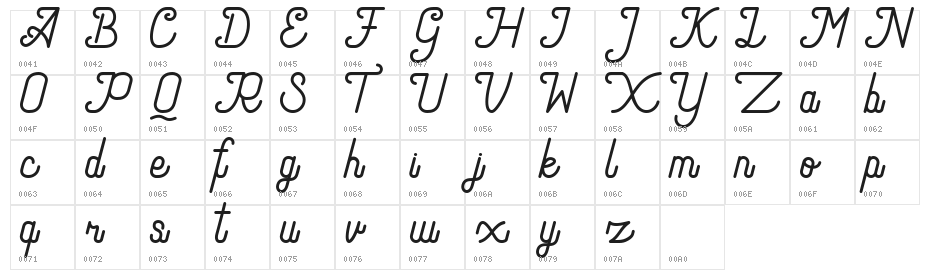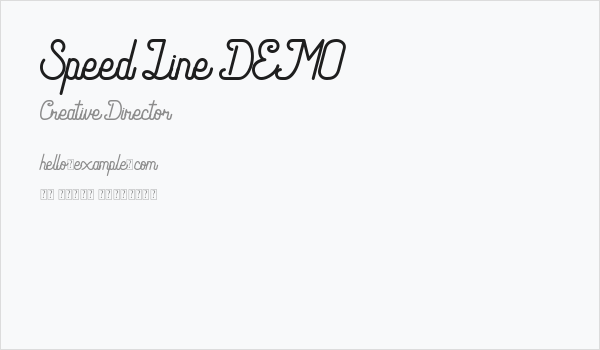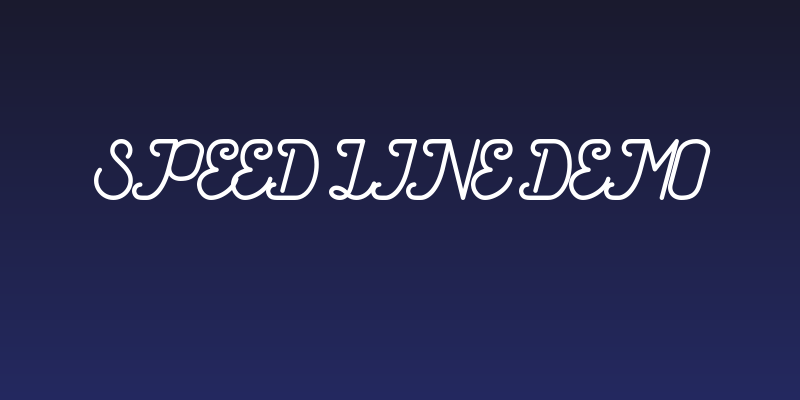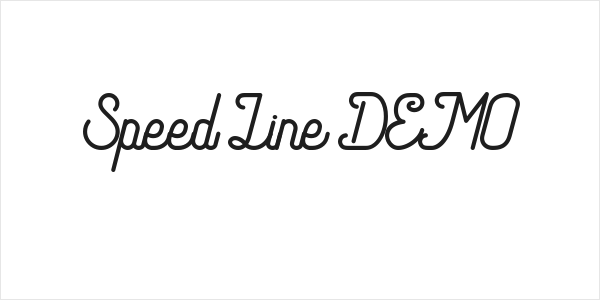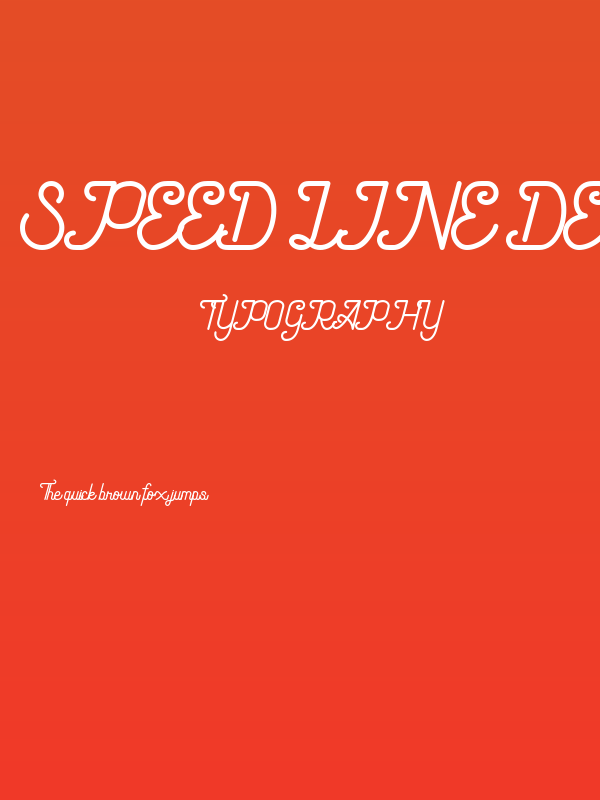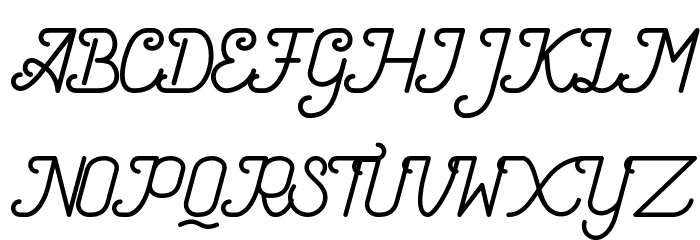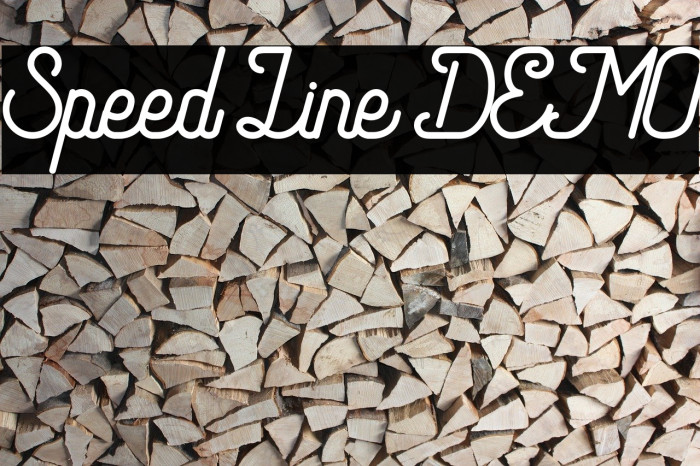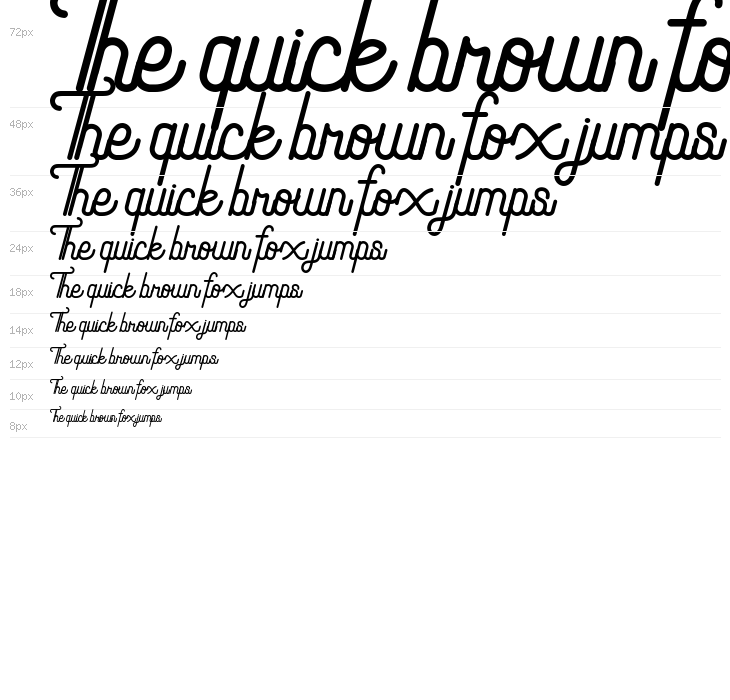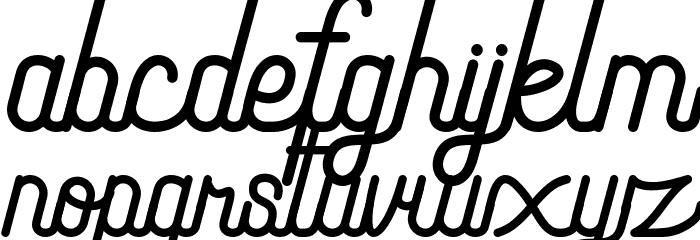
Speed Line DEMO Font
Speed Line DEMO Description
This font features a dynamic and flowing script style with a modern twist. The uppercase letters are elegantly connected, creating a sense of movement and speed. The lowercase letters maintain a consistent flow, with smooth curves and a slight slant that enhances readability. The numbers and special characters are designed to complement the letters, maintaining the same fluidity and style. This font is ideal for projects that require a touch of elegance and modernity, such as branding, invitations, and editorial design. Its unique style makes it stand out while remaining legible and versatile.
| Use Case | Logos, Invitations, Editorial Design |
| Proposed Projects | Branding, invitations, editorial design, and any project needing a modern, elegant touch. |
| Author | Fonts by william jhordy |